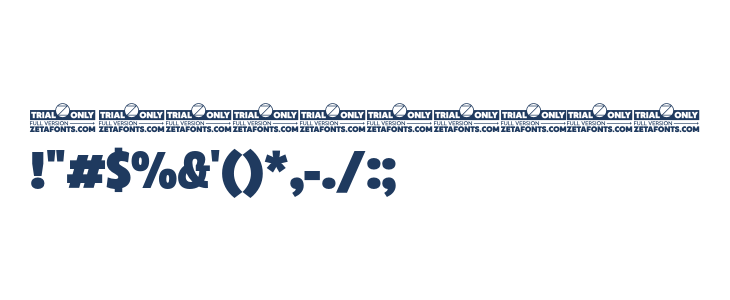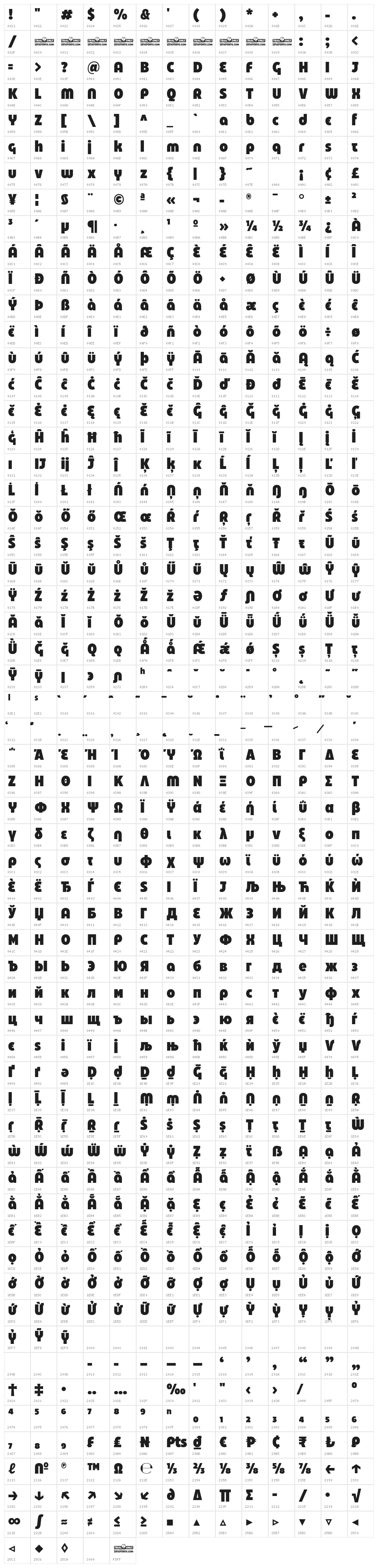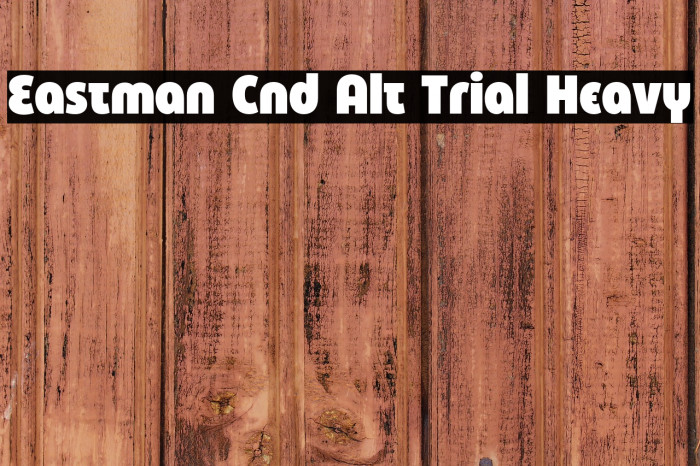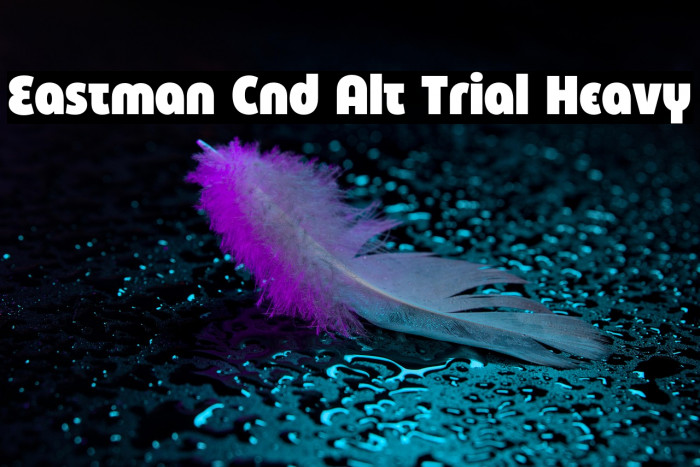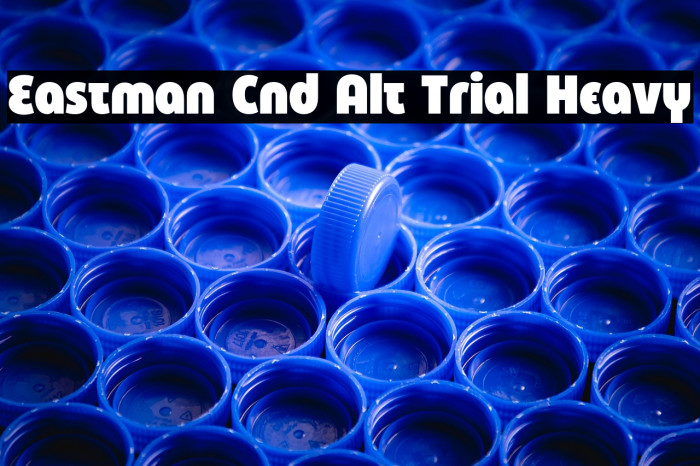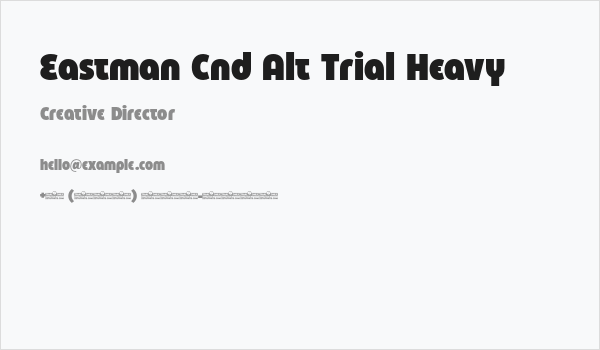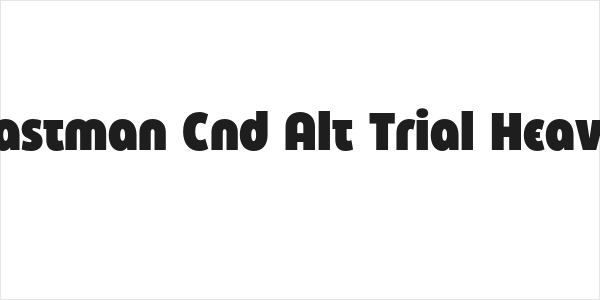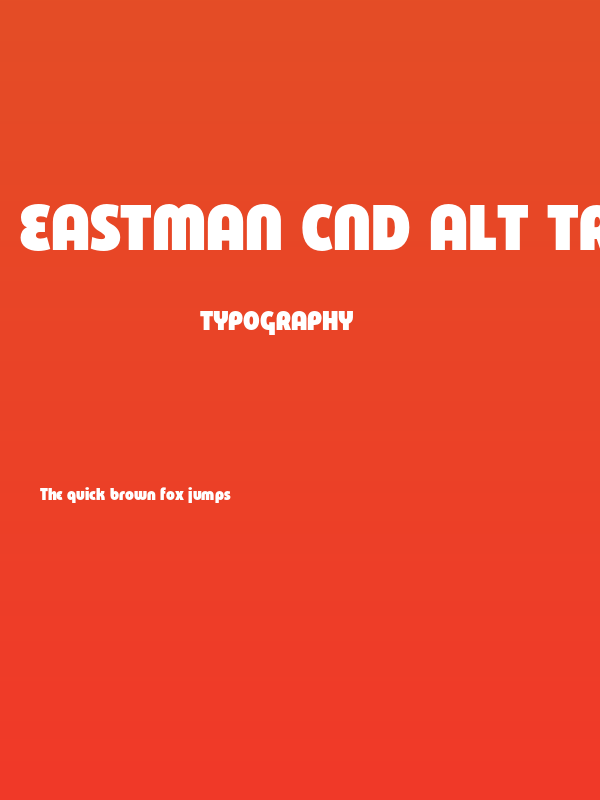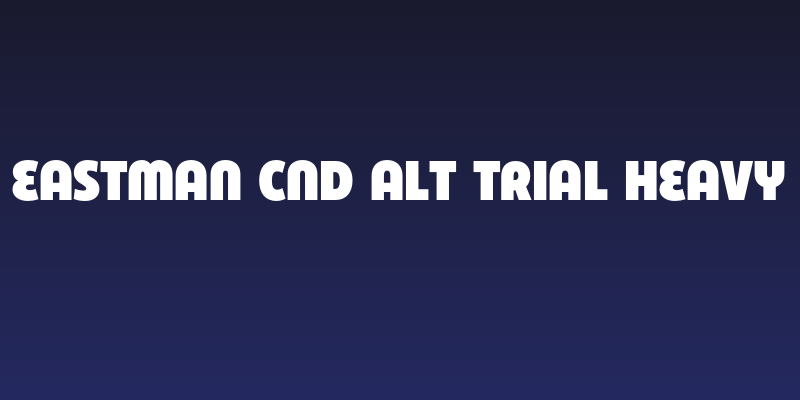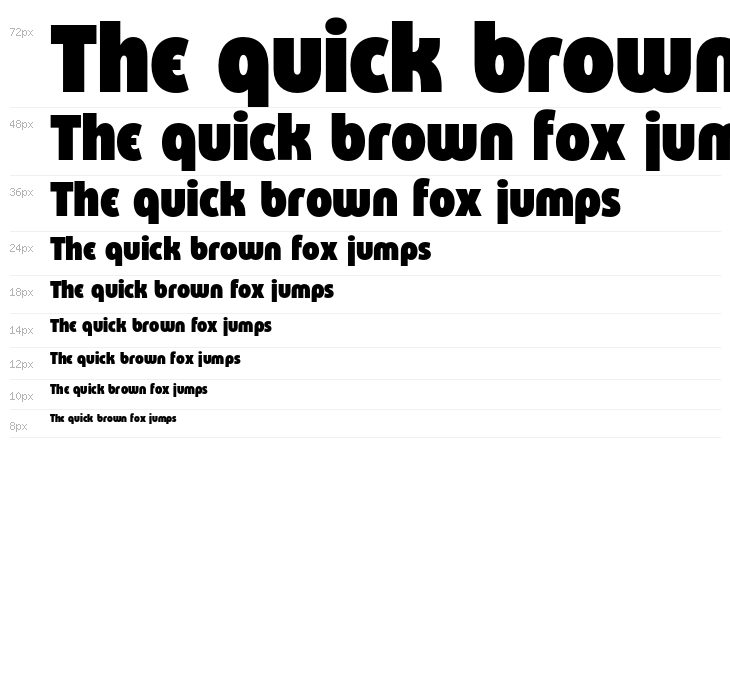
Eastman Cnd Alt Trial Heavy Font
Eastman Cnd Alt Trial Heavy Description
This font features a bold and heavy style with a condensed width, giving it a strong and impactful presence. The characters are designed with a modern aesthetic, featuring clean lines and a uniform stroke weight that enhances readability. The uppercase and lowercase letters maintain a consistent style, while the numerals and special characters complement the overall design. The font's boldness makes it suitable for attention-grabbing headlines and display purposes, while its condensed form allows for efficient use of space.